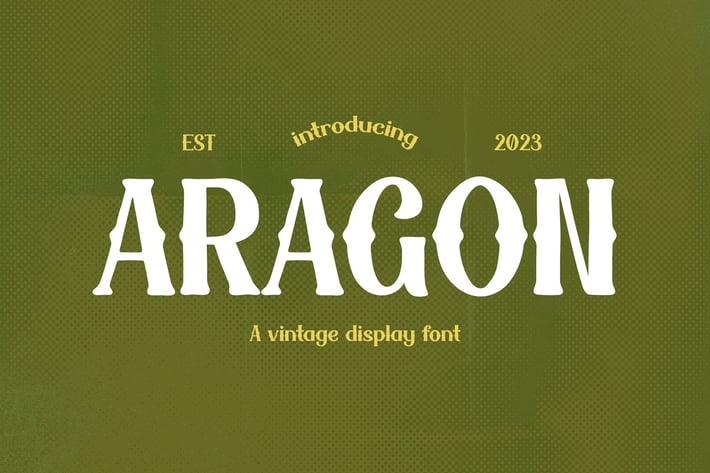
Aragon - Elegance Vintage Font
Step into a world where timeless elegance and vintage vibes converge—welcome to Aragon. Tailored for restaurants, logos, quotes, invitations, signage, posters, greeting cards, packaging, headers, printed quotes, cover albums, and more,
Aragon exudes a distinctive charm that resonates with the grace of bygone eras. Its retro, rustic, and classic elements harmonize seamlessly, making it the perfect choice for projects that demand a touch of vintage sophistication.
Whether you're crafting a memorable restaurant logo, designing invitations that evoke nostalgia, or curating an album cover that stands the test of time, Aragon ensures that every detail is infused with a sense of enduring style. Immerse your designs in the timeless allure of Aragon and let each stroke tell a story of vintage elegance that transcends the boundaries of the present.